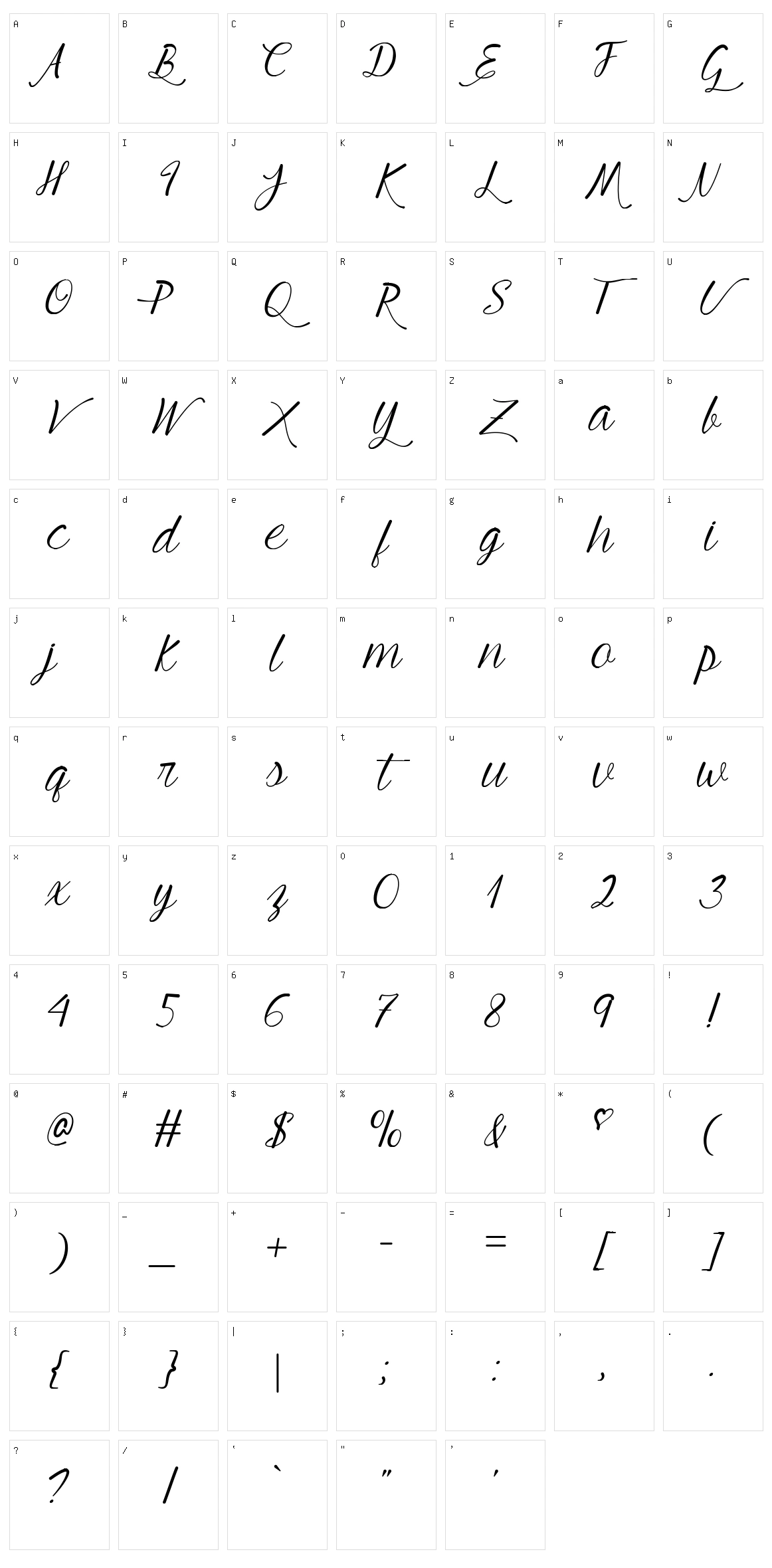
The free font Mf Young & Beautiful is carefully designed by Misti's Fonts, showcasing a thoughtful balance of creativity and usability and falls under the Script font style. When you download the ZIP file, it contains only 84.27 KB of font files, making it lightweight and quick to download. Please review the license details below to understand permitted usage and distribution rights. If license information is not available, we recommend using this font for personal projects only or contacting the author directly for commercial usage permissions.